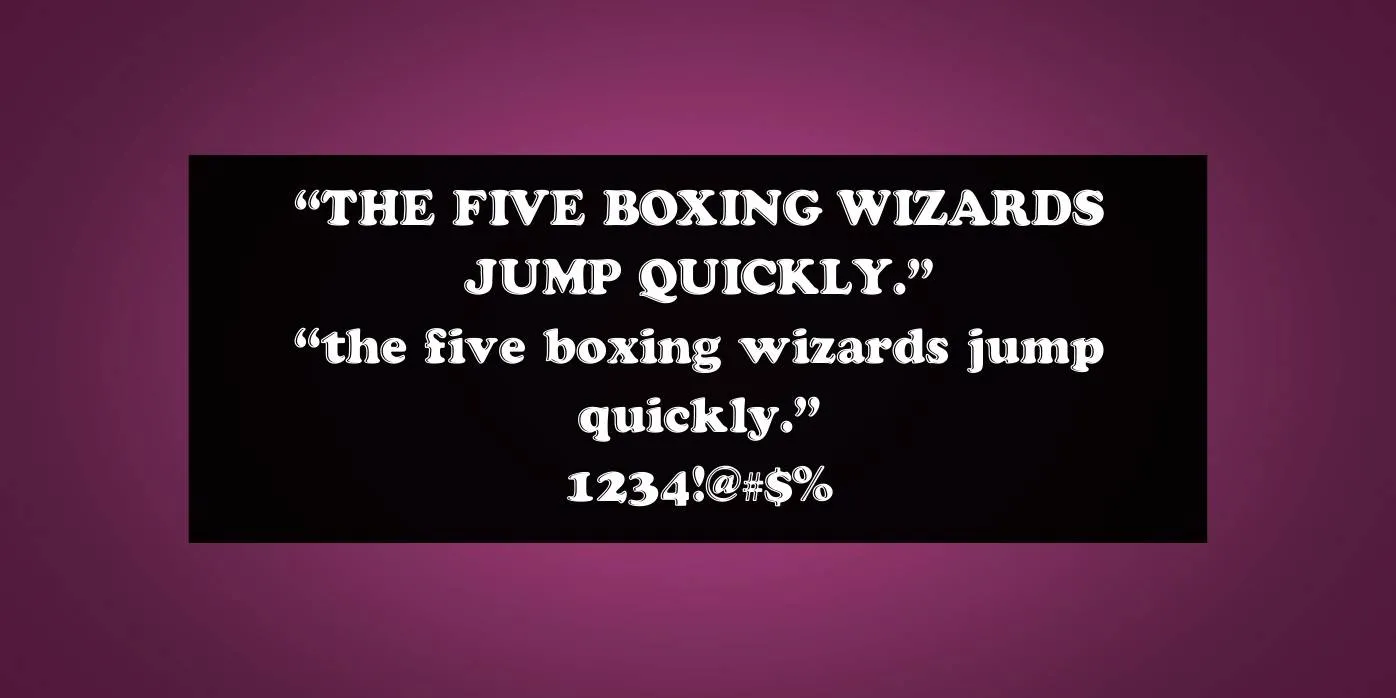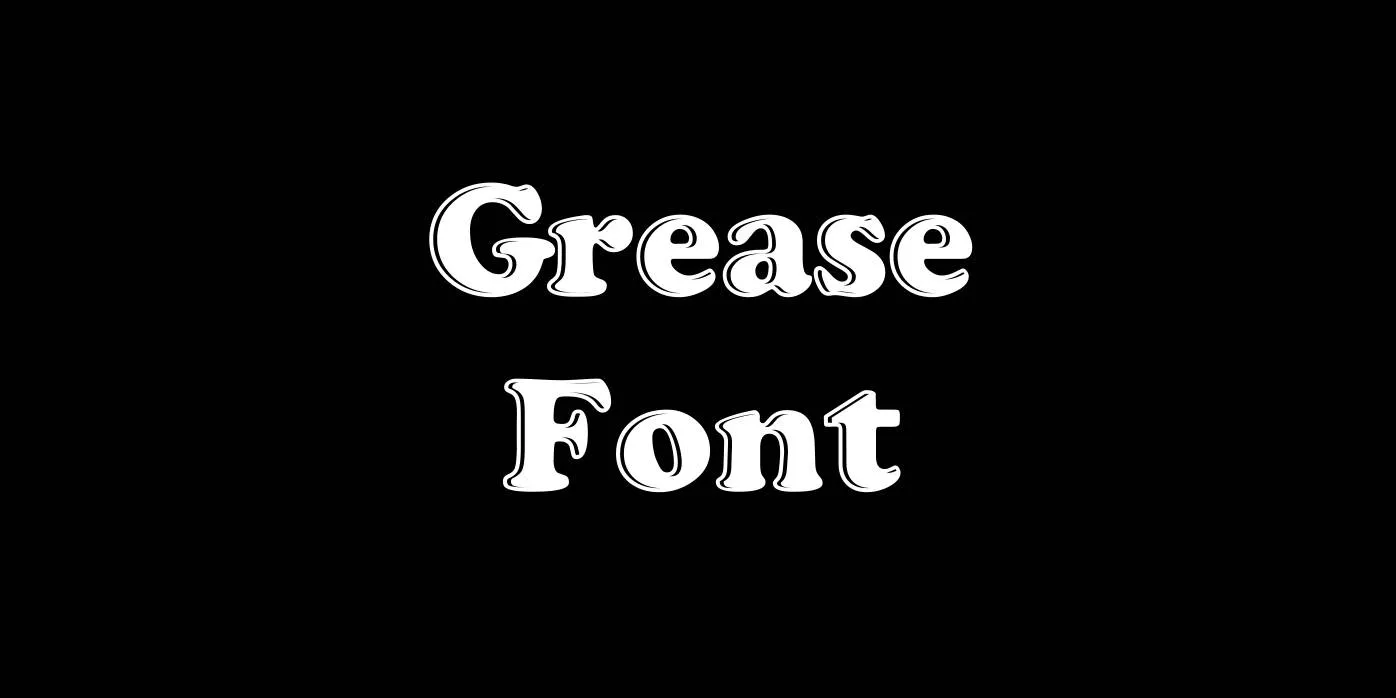
Grease Font
Grease Font is a fancy typeface designed by Ryoichi Tsunekawa and it was released in 2016. The design of this Font was inspired by the popular grease logo. This Font is available in three different weights—light, regular, and bold. It includes support for Latin, Cyrillic, and Greek characters.